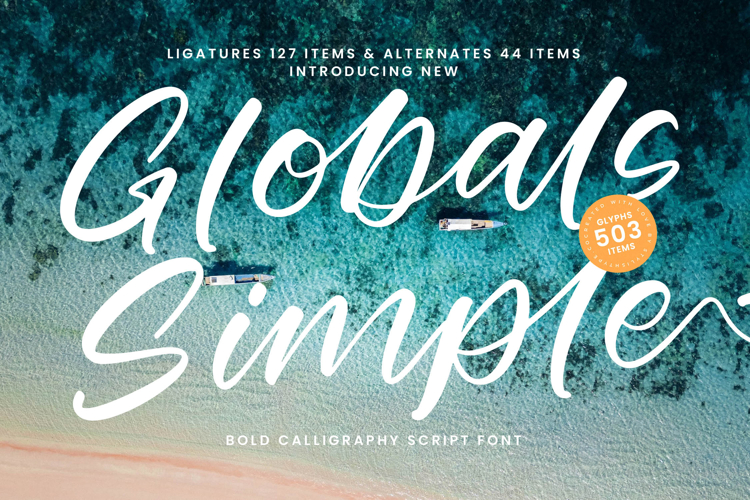
Globals Simple - Bold Calligraphy Script
Globals Simple is a bold calligraphy script font designed to bring confidence, elegance, and contemporary energy into design projects. With its bold handwritten strokes, stylish ligatures, and smooth alternates, this font is perfect for modern creatives who want to make a strong impression. Featuring 127 ligatures, 44 alternates, and a total of 503 glyphs, Globals Simple provides endless flexibility for creating expressive and customized lettering compositions.
This font is excellent for branding. Perfect for logos, boutique shops, fashion products, lifestyle brands, and artisan packaging, Globals Simple communicates originality and refinement. Its bold handwritten look ensures that branding projects feel stylish, powerful, and memorable, making it an ideal choice for businesses aiming for bold sophistication.